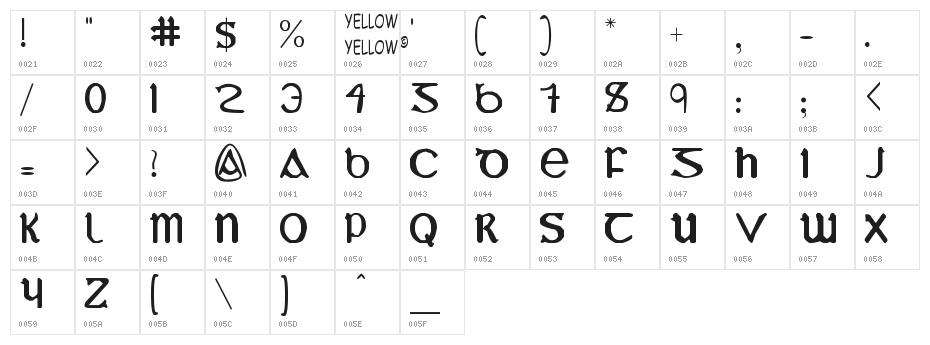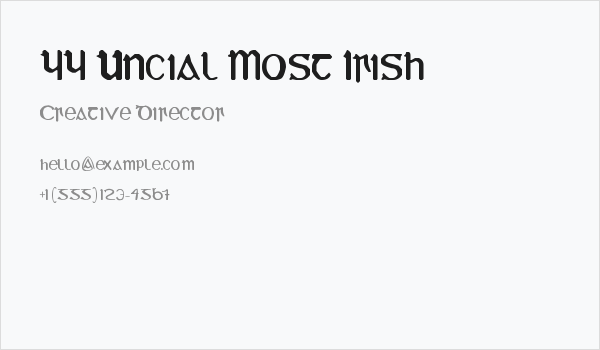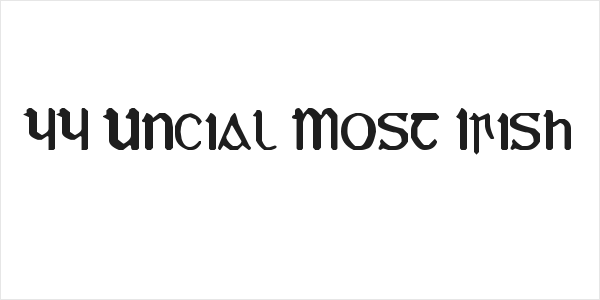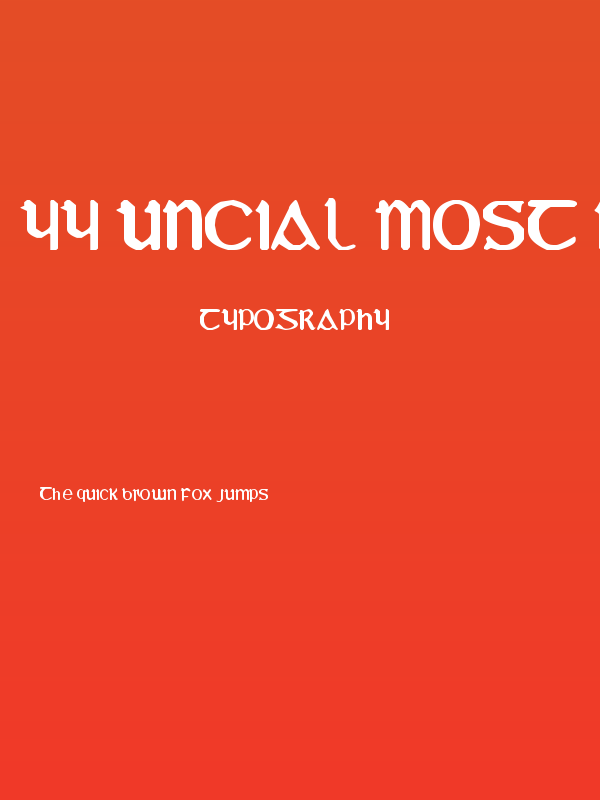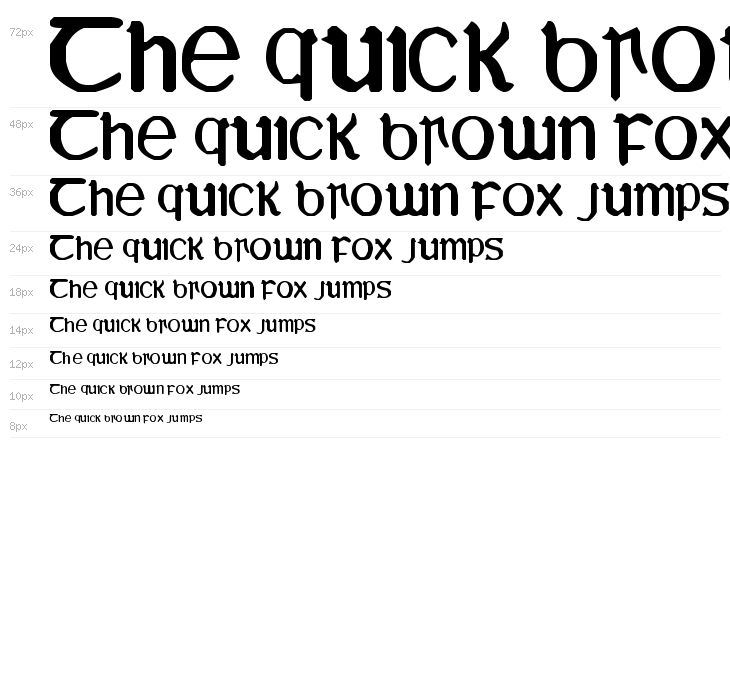
YY Uncial Most Irish Font
YY Uncial Most Irish Description
This font exudes a traditional and historical charm, reminiscent of ancient manuscripts and Celtic influences. The characters are bold and slightly condensed, with a distinct uncial style that features rounded forms and a consistent stroke width. The uppercase and lowercase letters maintain a harmonious flow, while the numerals and special characters integrate seamlessly with the overall design. The font's unique personality is highlighted by its decorative elements, making it ideal for projects that require a touch of antiquity and elegance.
| Proposed Projects | Ideal for historical documents, themed event invitations, book covers, and branding that seeks a vintage or Celtic aesthetic. |